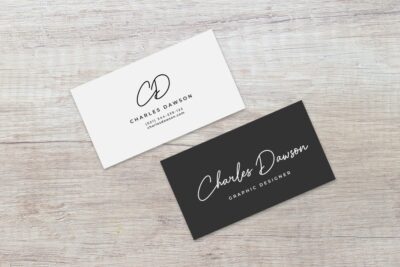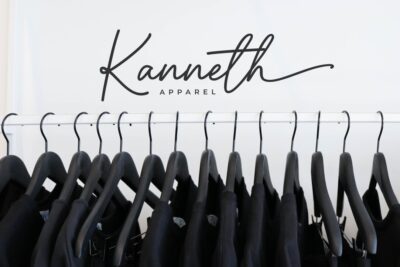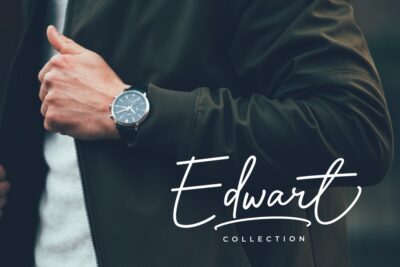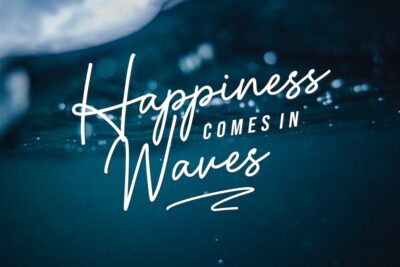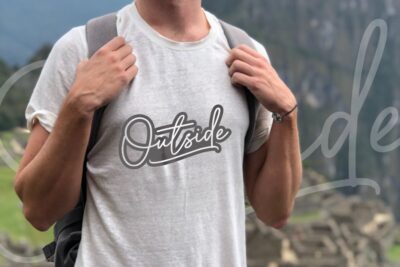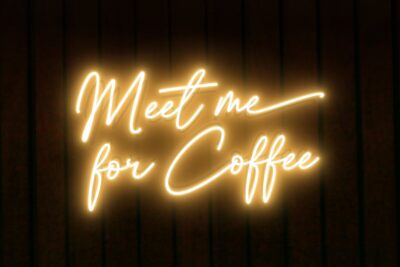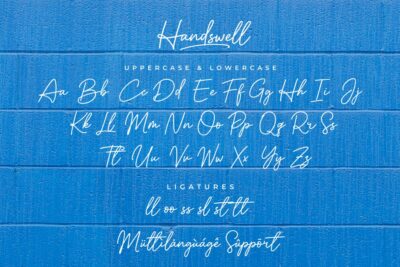
Handswell
Introducing Handswell!
It is a handwriting font with a natural and unique style that makes for an attractive and elegant design project.
It is perfect for branding, business cards, clothing, quotes, logos, and more!
Features Included:
• Uppercase & Lowercase
• Number & Punctuation
• Ligatures
• Stylistic Alternatives
• Swashes
• Multilanguage Support